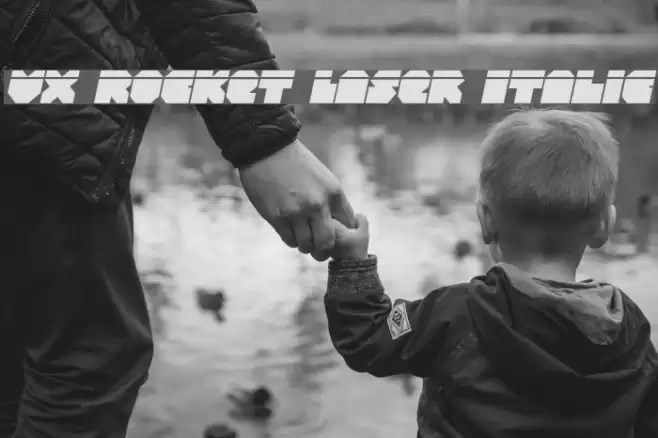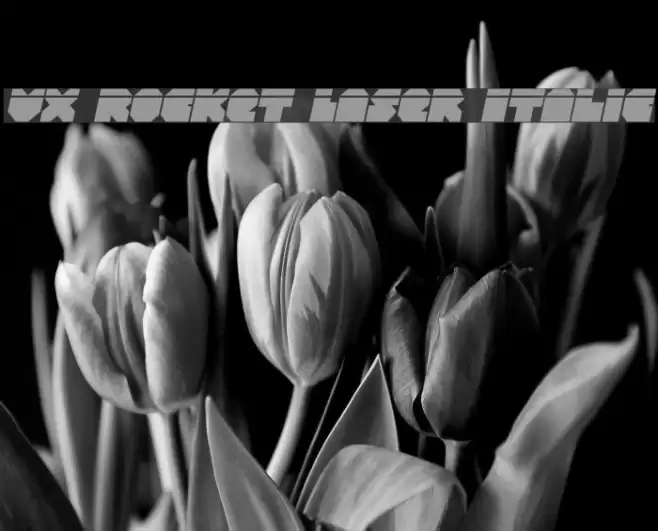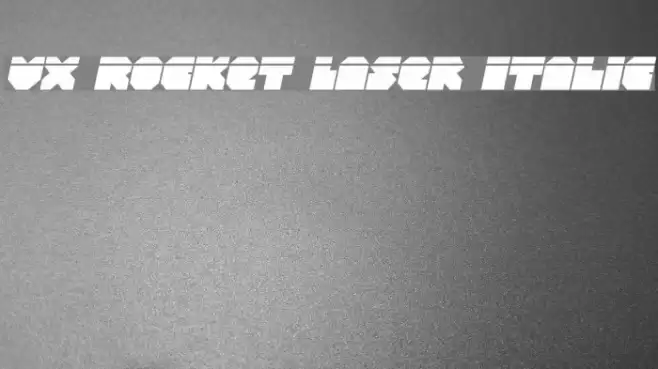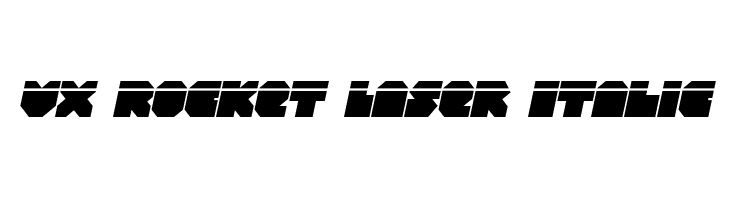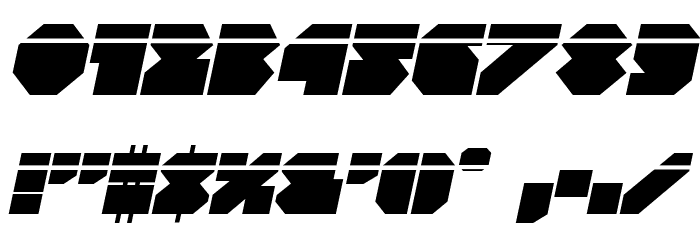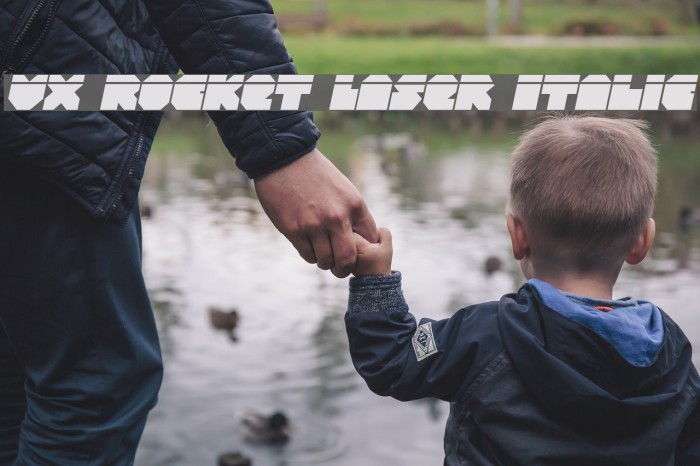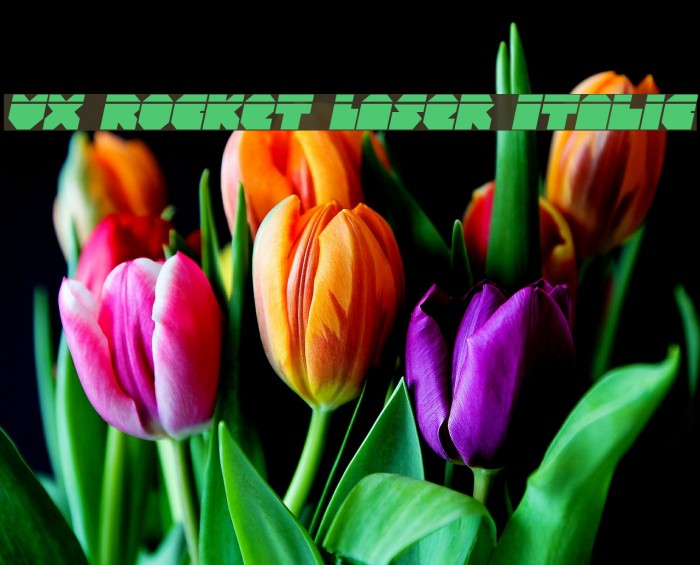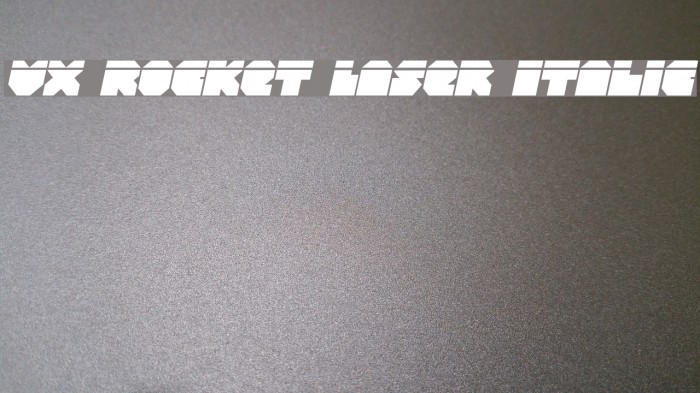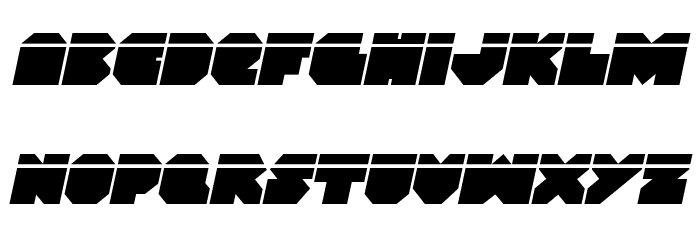
VX Rocket Laser Italic Font
VX Rocket Laser Italic Description
This font features a bold, futuristic design with sharp, angular edges and a distinct geometric style. The characters are heavily stylized, giving them a unique, almost sci-fi appearance. The uppercase and lowercase letters maintain a consistent width, creating a uniform look across the board. The numbers and special characters follow the same design principles, ensuring cohesion throughout the character set. The italic slant adds a dynamic feel, enhancing the font's modern and edgy aesthetic.
A bold, futuristic font with sharp, angular edges and a geometric style from Futuristic fonts.